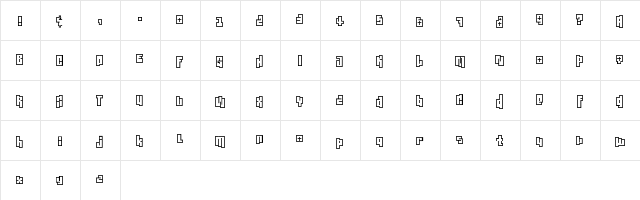
Stitched Outline Regular
| Designer | Tobias Sommer |
Design Context for Stitched Outline Typeface
Stitched Outline is built around its visual character rather than neutral utility — its distinctive forms are designed to make an impression at display sizes.
Font Pairing: Pair with a clean neutral sans-serif for body copy to let Stitched Outline's character lead without overwhelming the composition.
Pro Tip: Use Stitched Outline exclusively at display sizes — it was designed to be seen, not read at length. Let a neutral companion handle body copy.